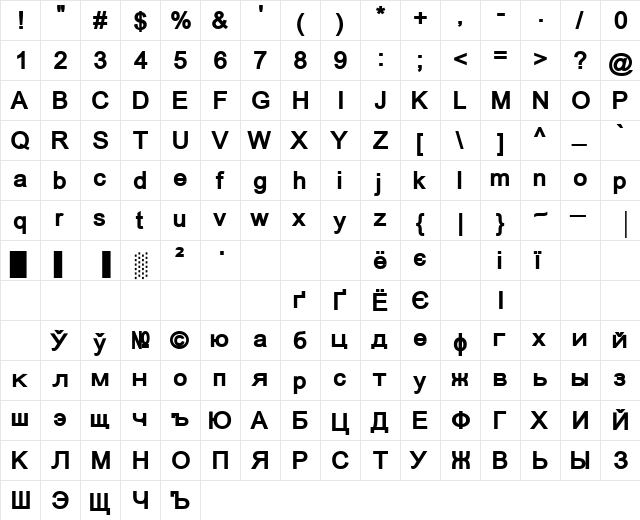
ER Univers KOI-8 Bold
Design Context for ER Univers KOI-8 Typeface
ER Univers KOI-8 is a composed and adaptable typeface that performs quietly and consistently across a wide range of design contexts. The heavy weight commands attention and anchors typographic hierarchies.